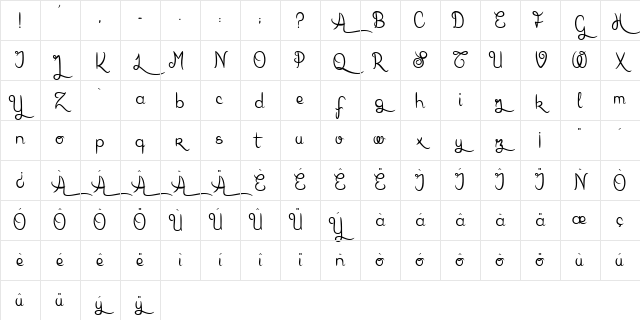
Karl Wright Script flows with the natural rhythm of handwritten lettering, making it ideal for designs that call for warmth and personal expression.
Font Pairing: Combine Karl Wright Script with a simple geometric sans for maximum contrast - the tension between flowing curves and clean structure is a classic typographic pairing.
Pro Tip: Use Karl Wright Script for short runs of text - names, titles, or taglines. Extended body copy in script faces tires the eye quickly.